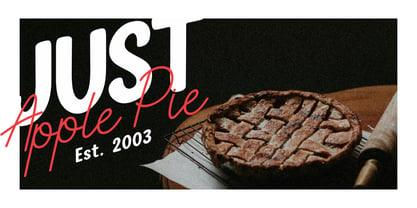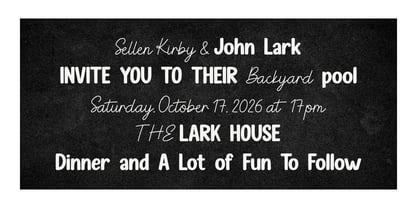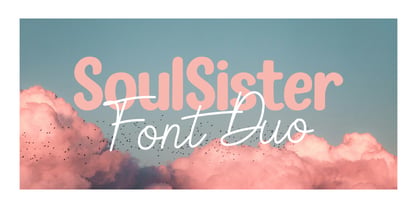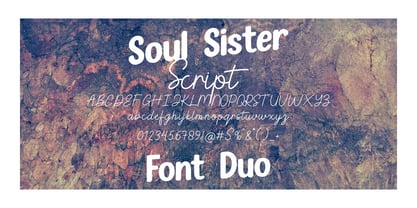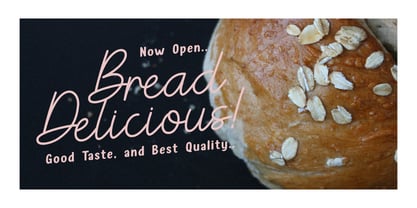
Soul Sister Sans
by Modikstype
The Soul Sister Sans Font Family was designed by Angga Monad and published by Modikstype. Soul Sister Sans contains 2 styles and family package options.
oul Sister is a beautiful and expressive font duo that blends a bold retro serif with a smooth handwritten script. This perfect pairing creates a stunning contrast between strong, confident letterforms and soft, flowing strokes — making your designs feel warm, stylish, and full of personality. The serif font features rounded edges and a vintage-inspired shape that feels both playful and timeless. Meanwhile, the script font adds an elegant, natural touch with its fluid curves and effortless charm. Together, they create eye-catching typography for branding, packaging, social media, and more. Soul Sister is ideal for logos, bakery branding, café menus, wedding invitations, posters, product packaging, quotes, and feminine brand identities. Whether you're creating something sweet and romantic or bold and modern, this duo gives you the flexibility to do both beautifully.
Designers: Angga Monad
Publisher: Modikstype
Foundry: Modikstype
Design Owner: Modikstype